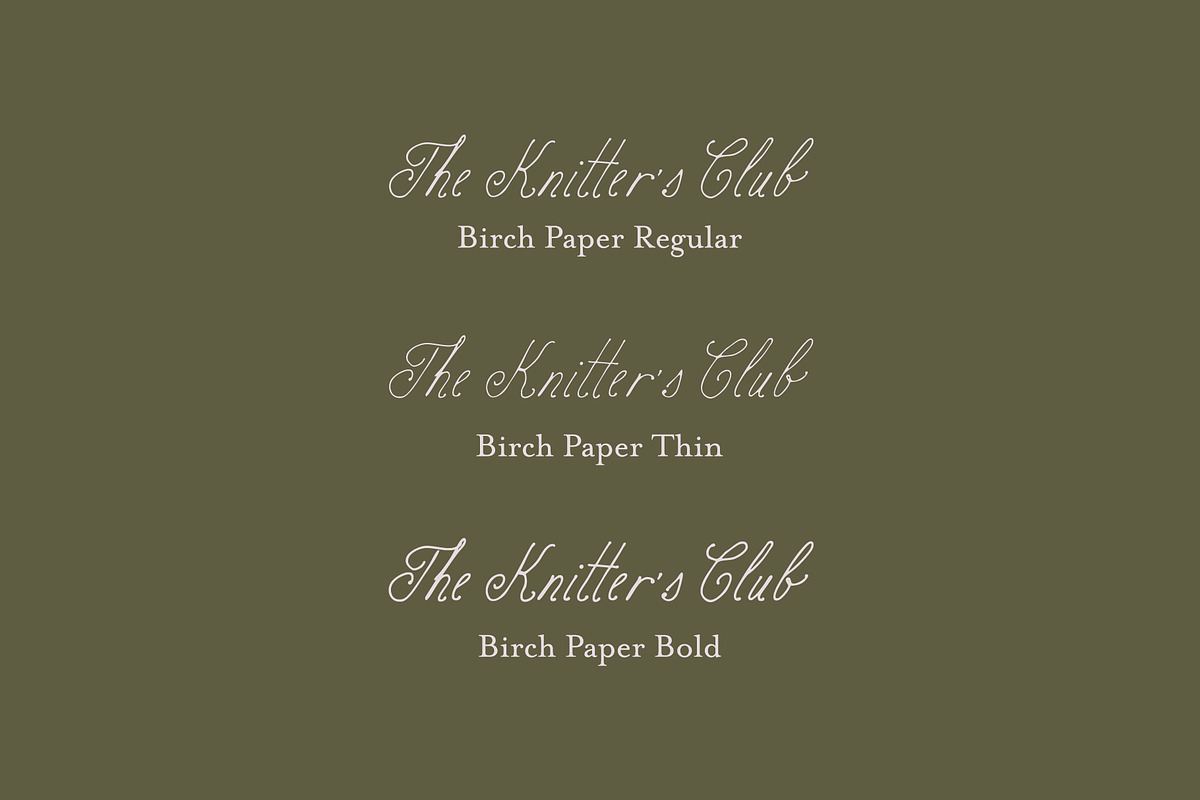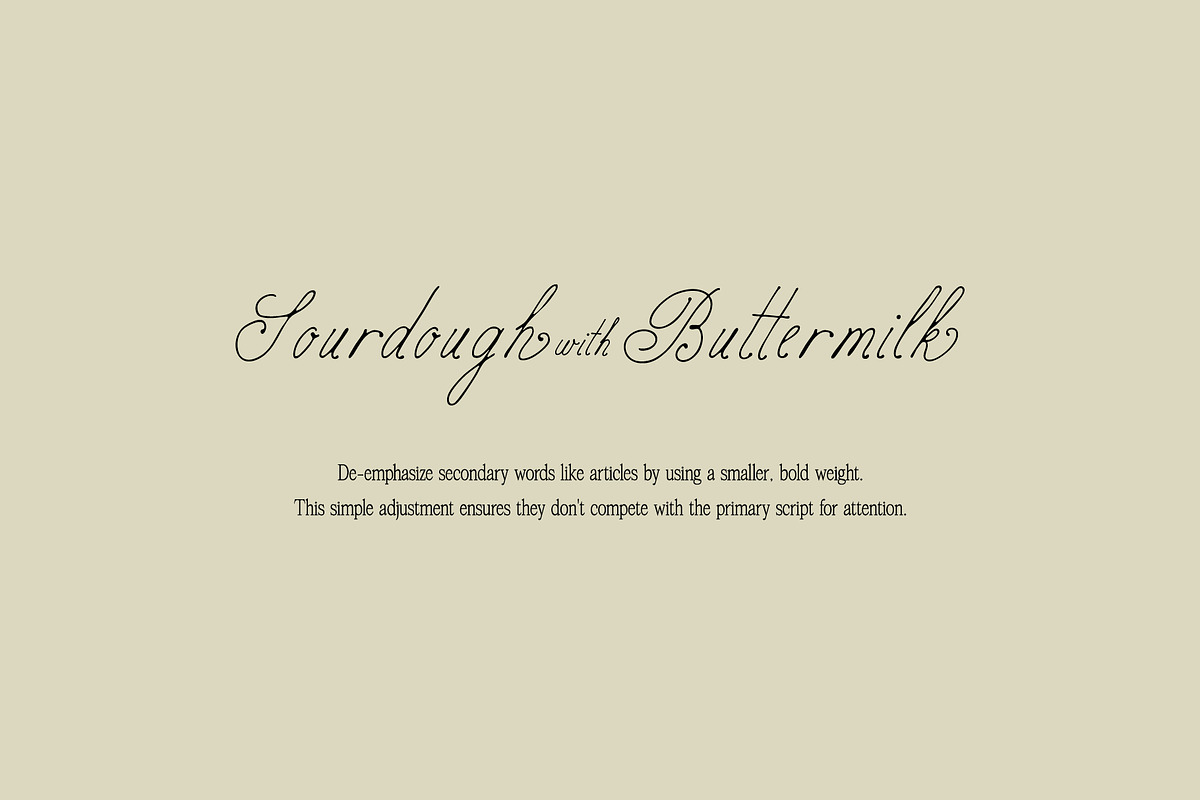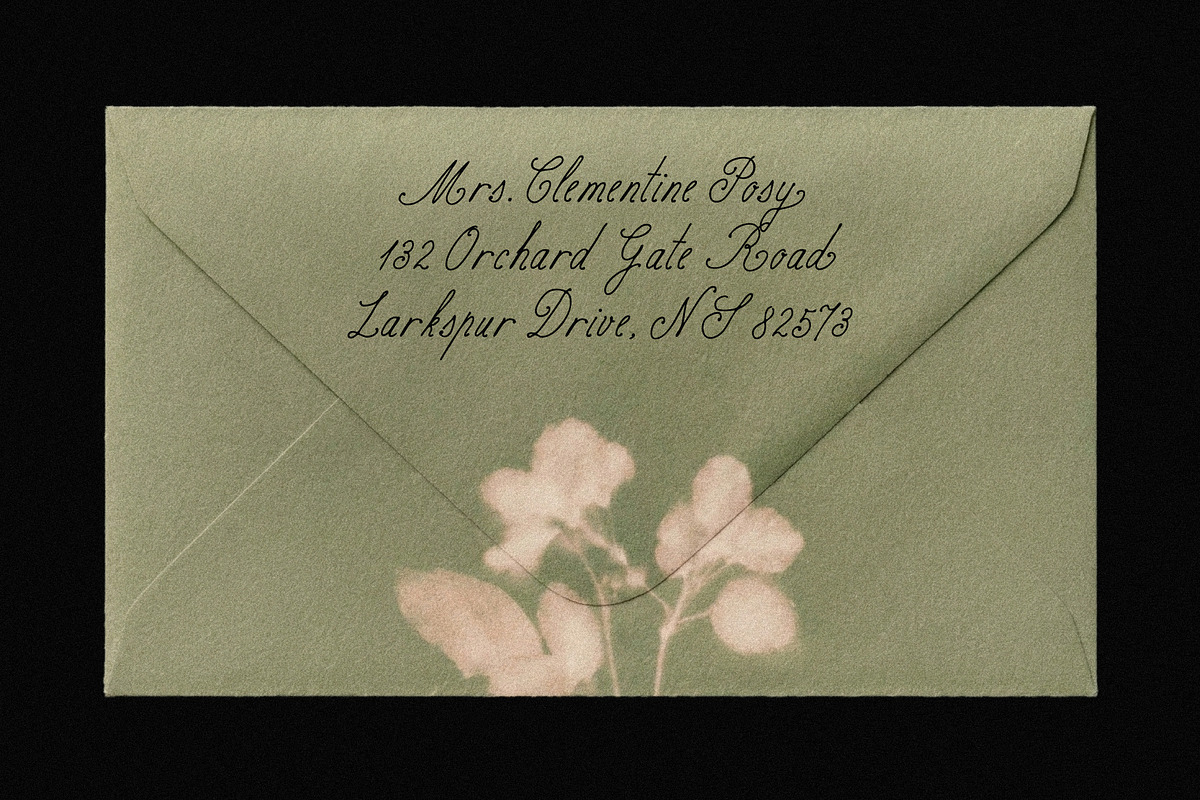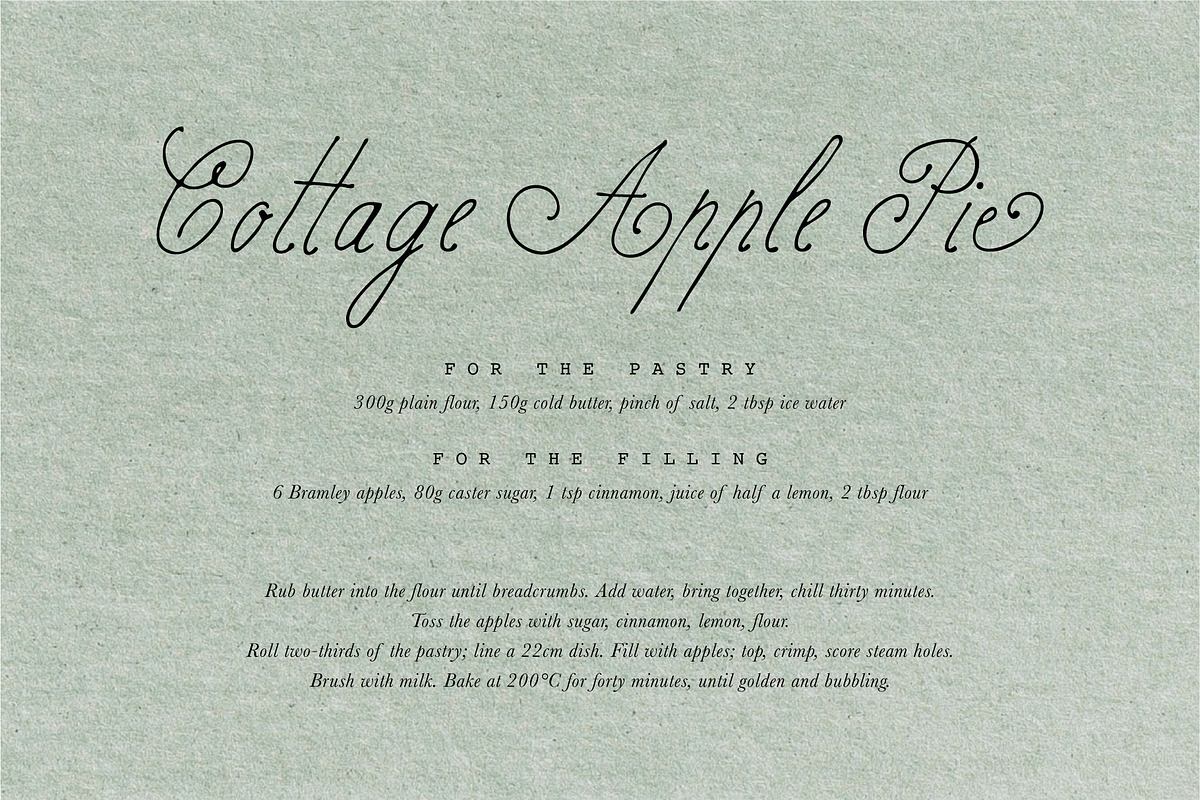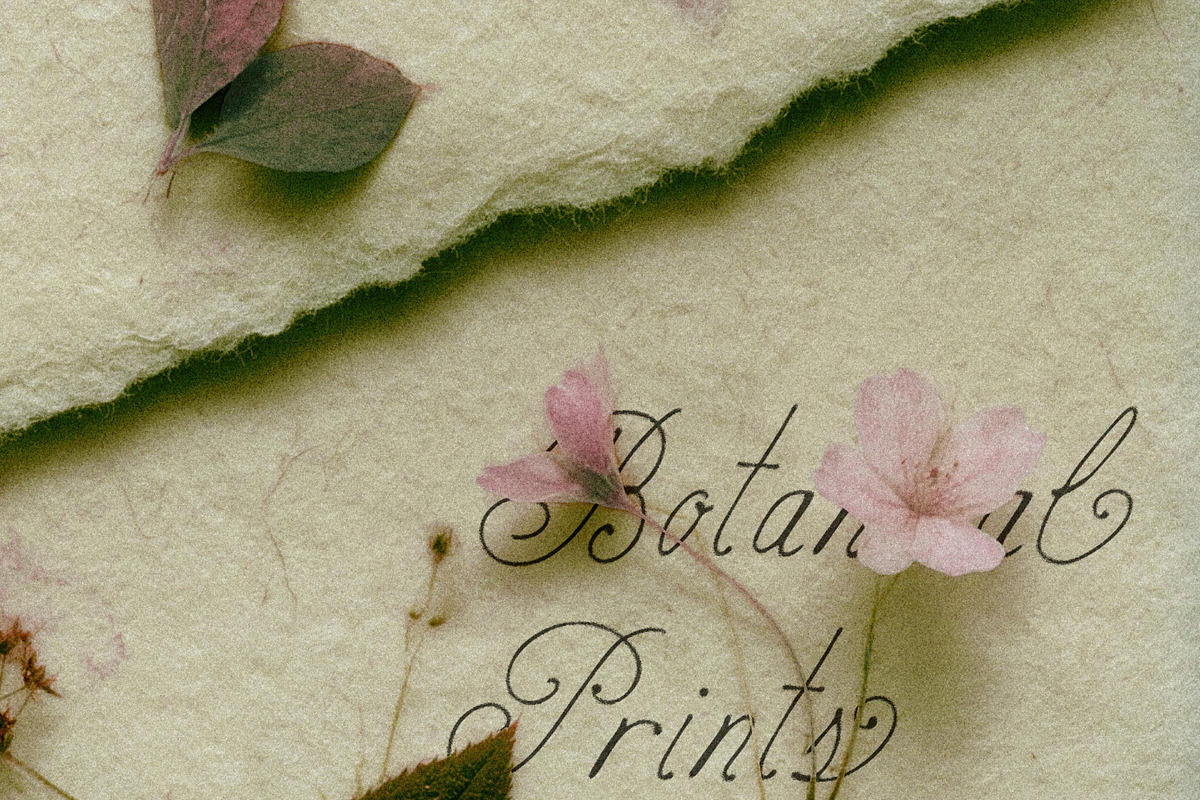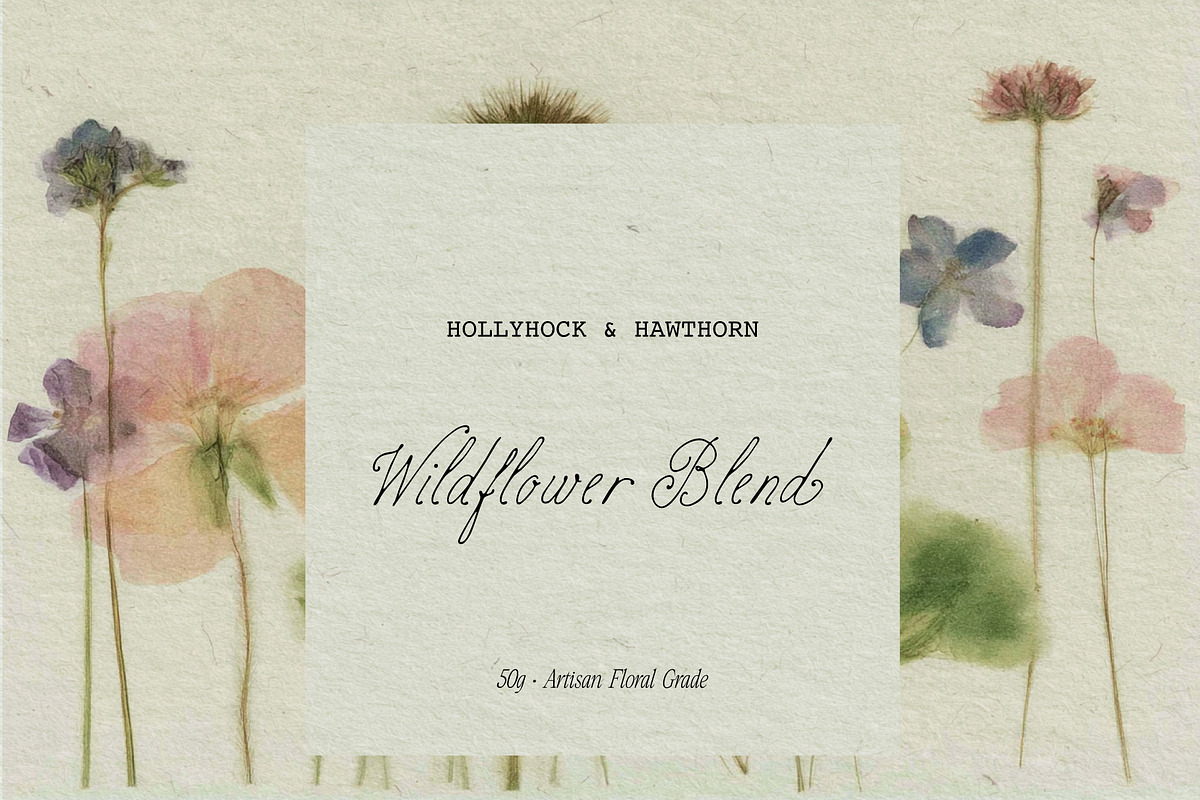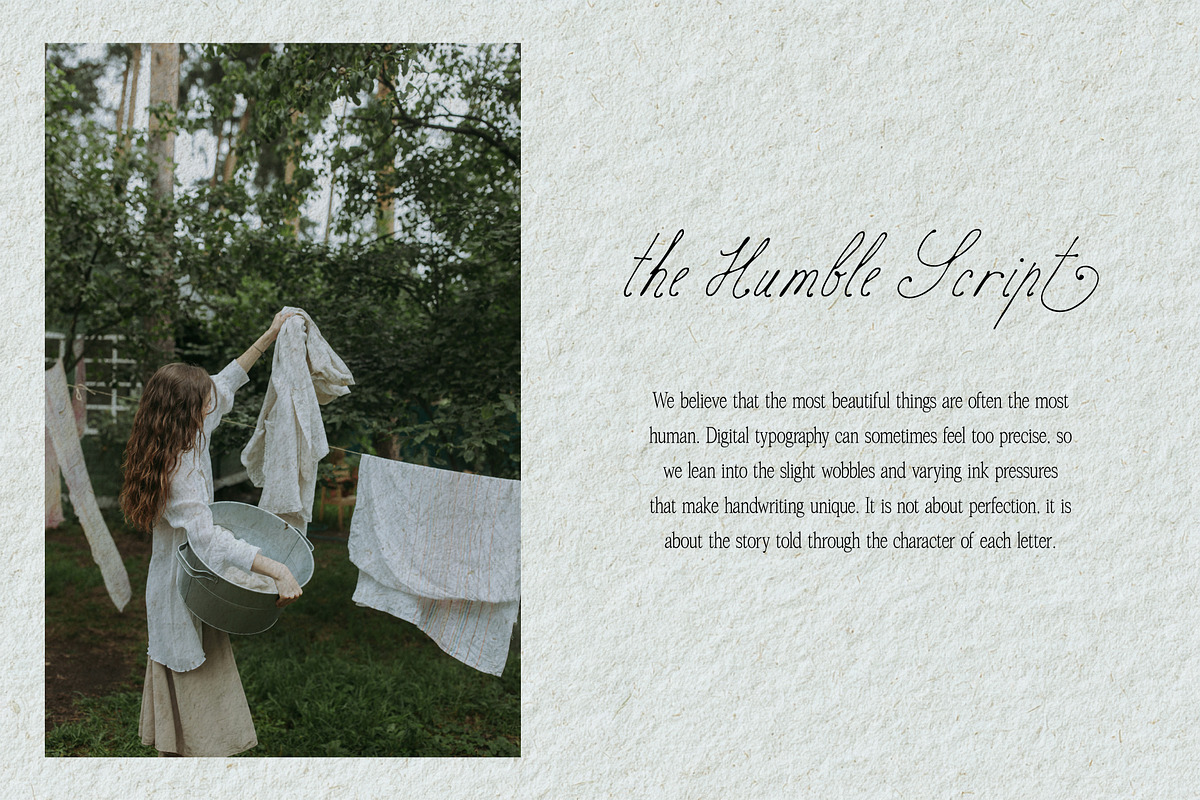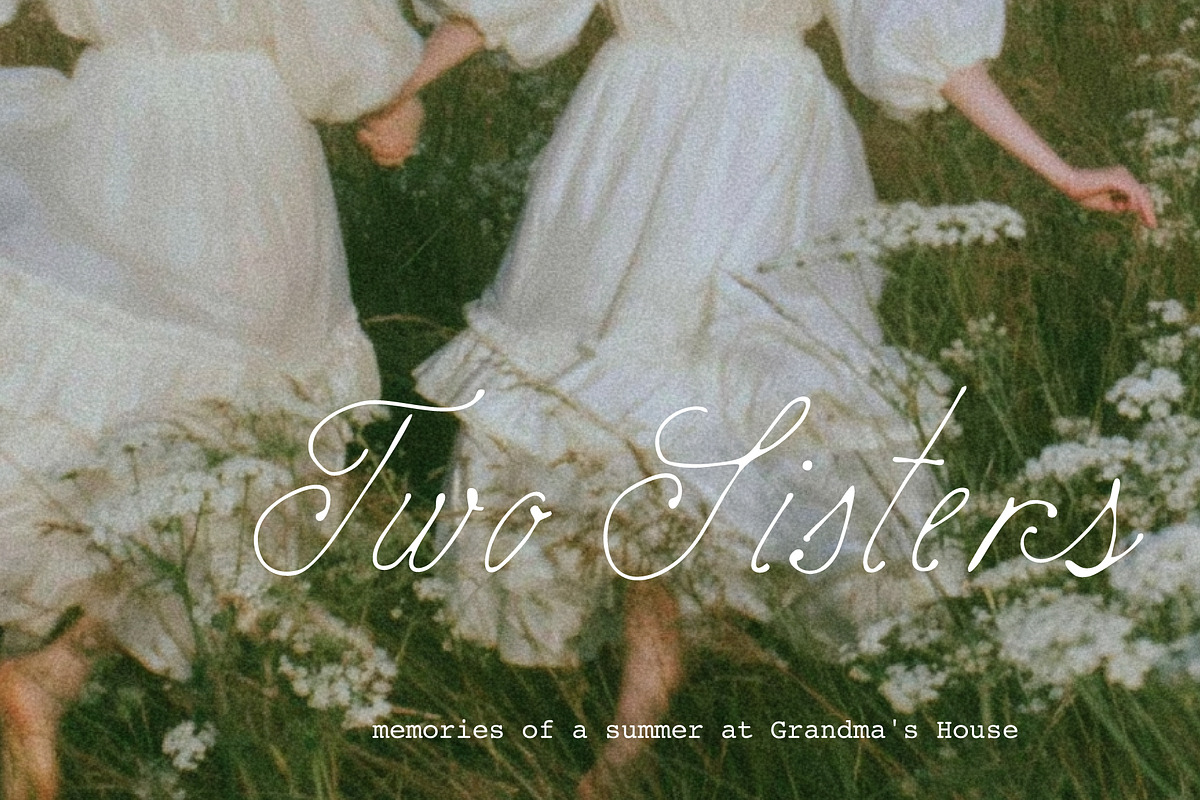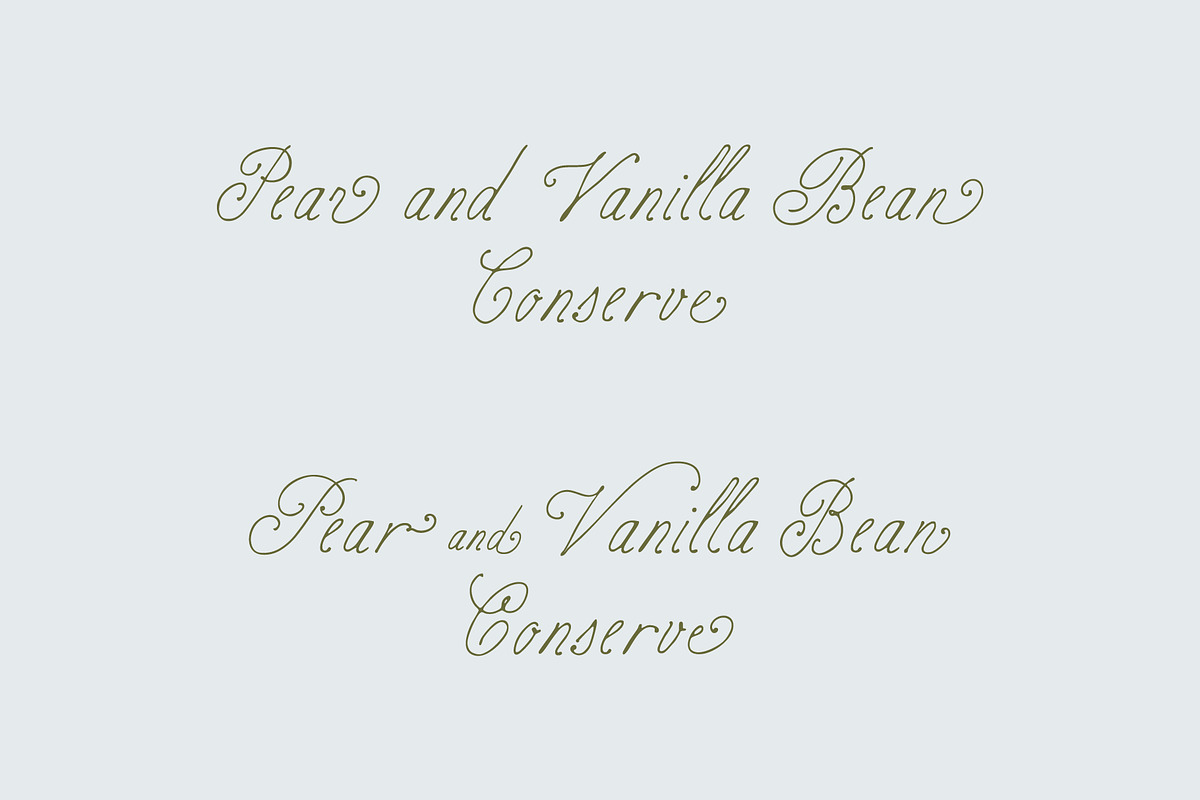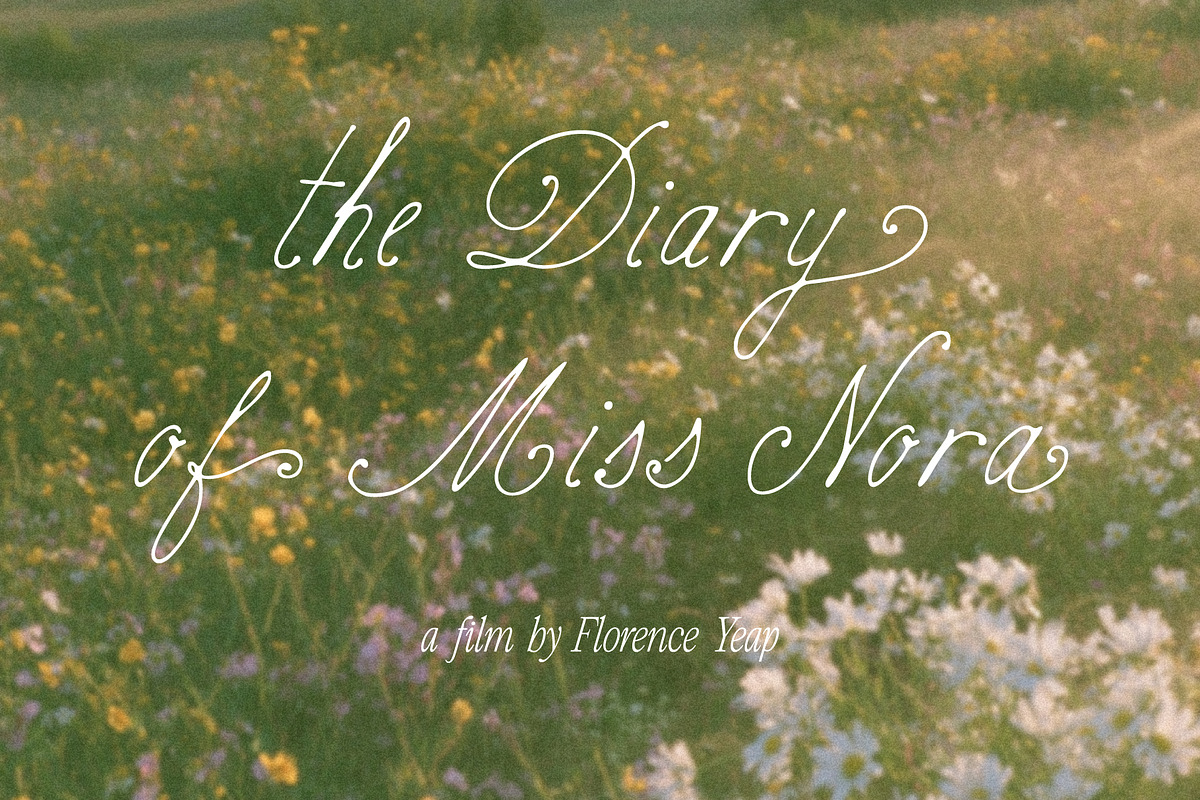
Birch Paper // Handwritten Font
Birch Paper is a modest, organic script designed to mimic the natural irregularities of a pen. It doesn’t strive for perfect copperplate curves; instead, it leans into the slight wobbles and varying pressures of real handwriting.
The Collection The family includes three weights that share the same skeletal structure:
Birch Paper Thin: A light, delicate stroke suitable for fine print or subtle details.
Birch Paper Regular: A balanced weight for standard correspondence and branding.
Birch Paper Bold: A slightly heavier presence, designed to maintain a hand-drawn feel without becoming bulky.
Alternates & Character To ensure a natural flow, every uppercase and lowercase letter in Birch Paper includes at least one alternate version.